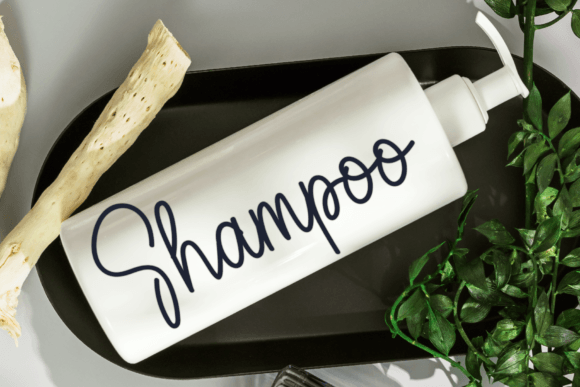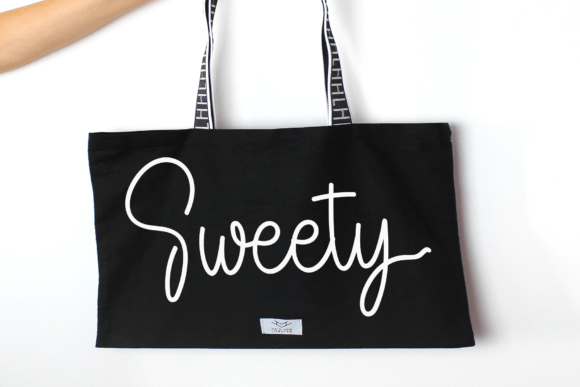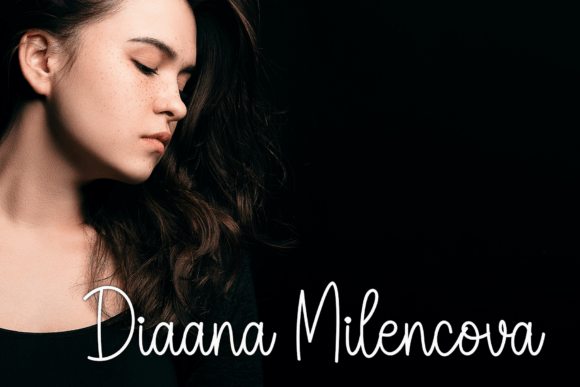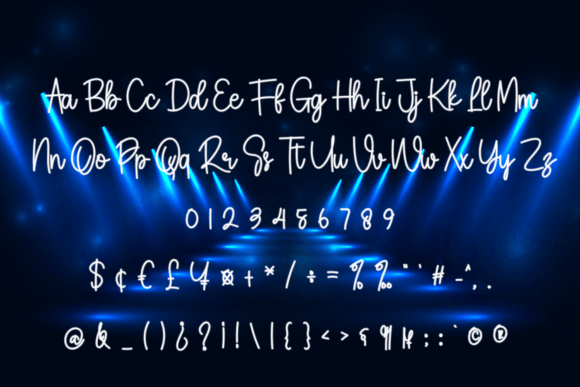
Introduction to Runway Font
Runway is a stylish and incredibly elegant handwritten font.
It looks stunning on wedding invitations, thank you cards, quotes, greeting cards, logos, business cards, and every other design which needs a handwritten touch .
Key Features of Runway Font